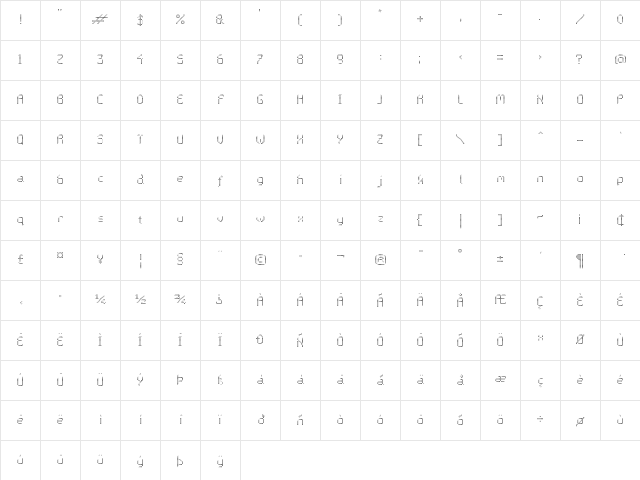
Galactica S is a composed and adaptable typeface that performs quietly and consistently across a wide range of design contexts. Its slender proportions lend an understated elegance to any composition.